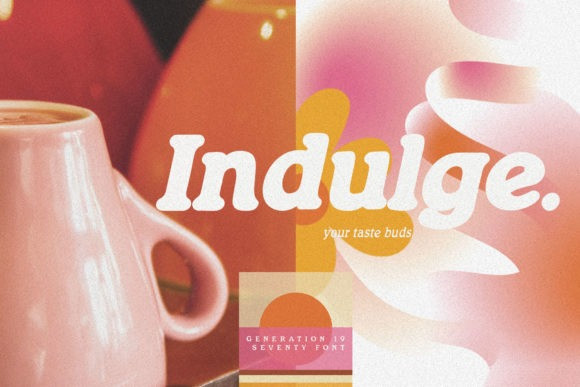
Generation 19 Seventy Font
Generation 19 Seventy is a hip vintage styled serif font that makes for stunning logos, quotes, wedding invites, blog posts, Instagram, and more! Add it confidently to your projects, and you will love the results.